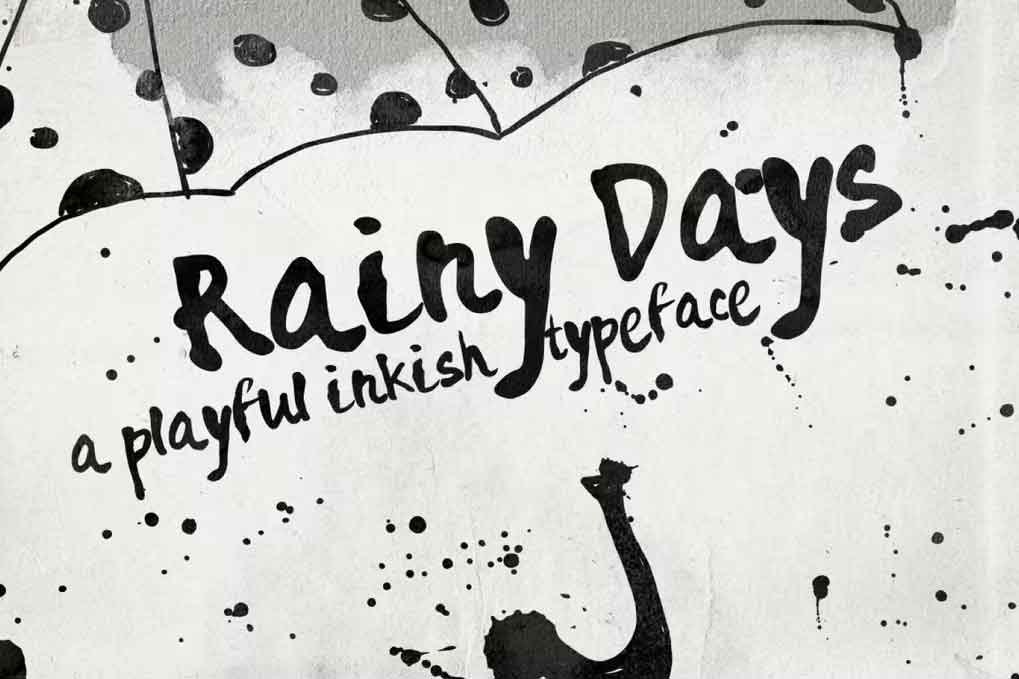
Rainy Days a Playful typeface Font
Rainy Days – a playful inkish typeface. This type was made by hand with black indian ink. I also added an ink drops and splashes to add more hand painted look and feel.…
Rainy Days – a playful inkish typeface. This type was made by hand with black indian ink. I also added an ink drops and splashes to add more hand painted look and feel.
Where Rainy Days a Playful typeface Font works best
A short phrase in Rainy Days a Playful typeface Font carries warmth that a typeset sans cannot fake; keep the rest of the card plain.
Chalkboard-style headings in Rainy Days a Playful typeface Font make a menu feel hand-made. Keep the dish descriptions in a simple face so prices stay readable.
One line of Rainy Days a Playful typeface Font over a photo is enough; the script carries the tone and the caption does the work.
What kind of work does Rainy Days a Playful typeface Font suit?
It sits in the Script And Handwritten group and reads as playful, script, script and handwritten, typeface. That makes it a candidate wherever those qualities help: headings, packaging, social graphics and brand work. Set it at the size you plan to use before deciding.